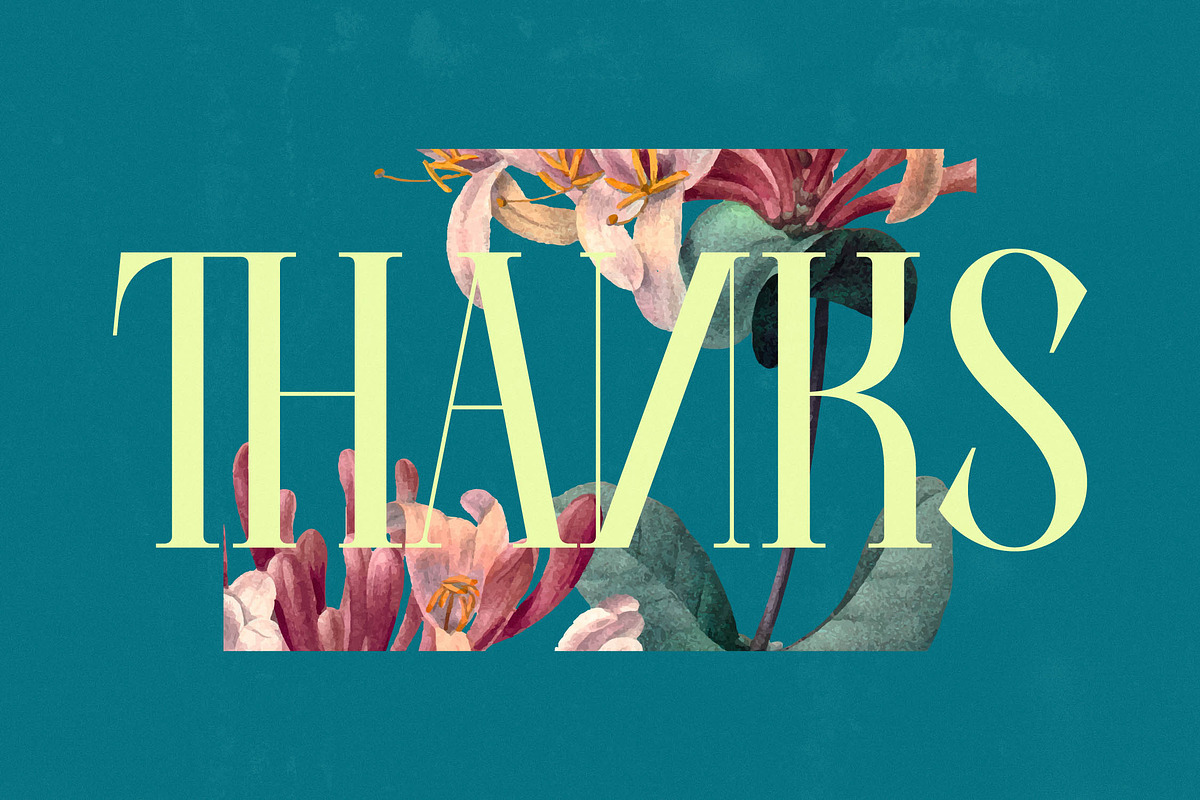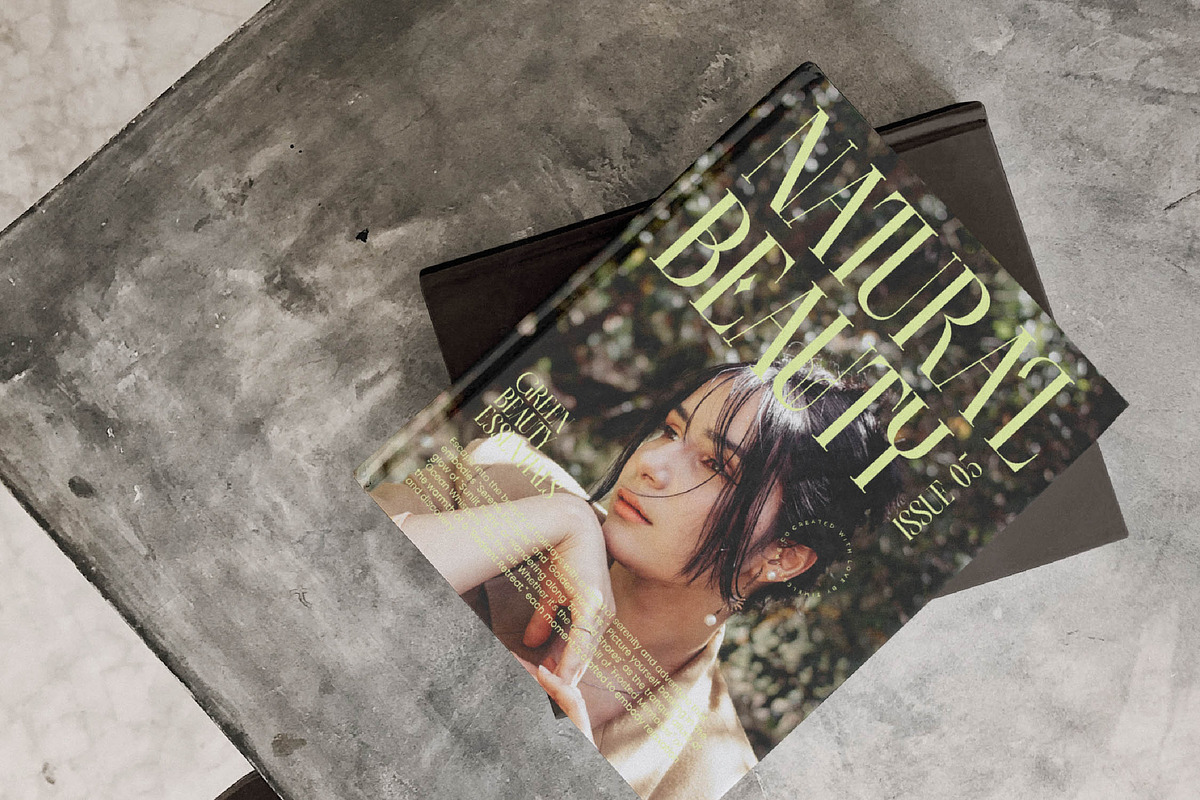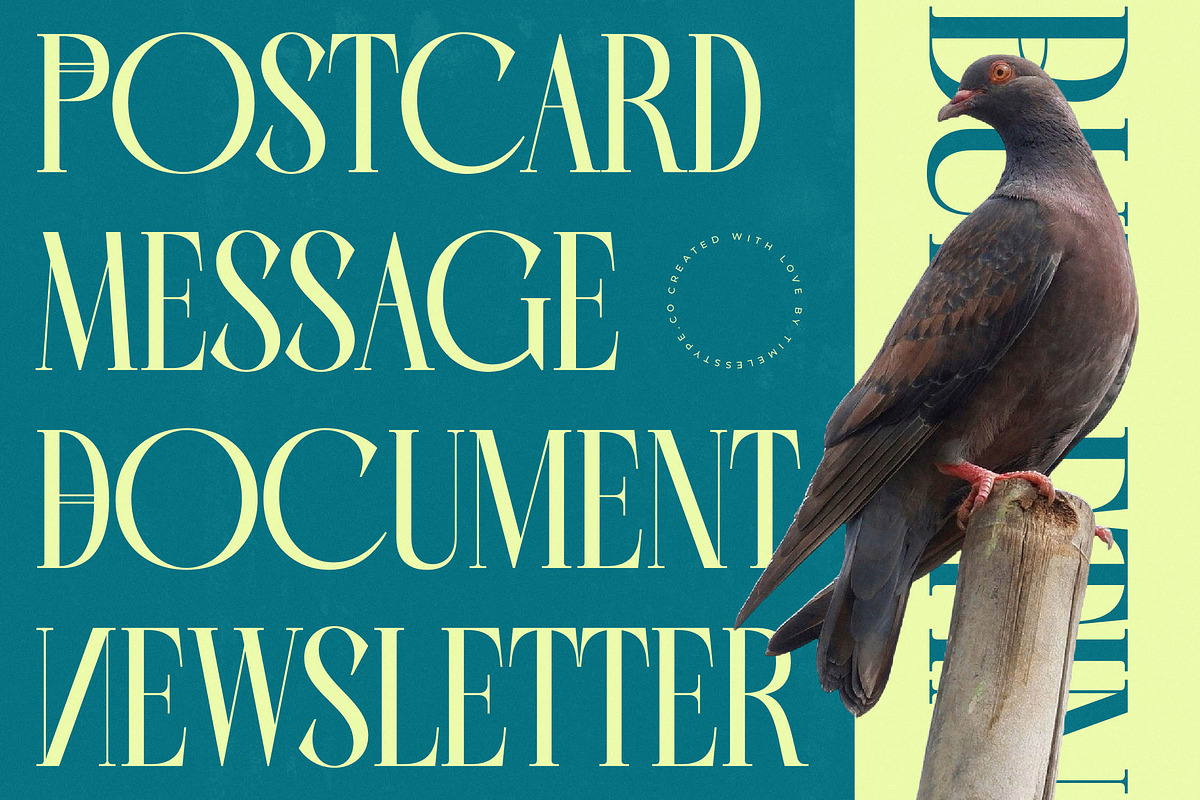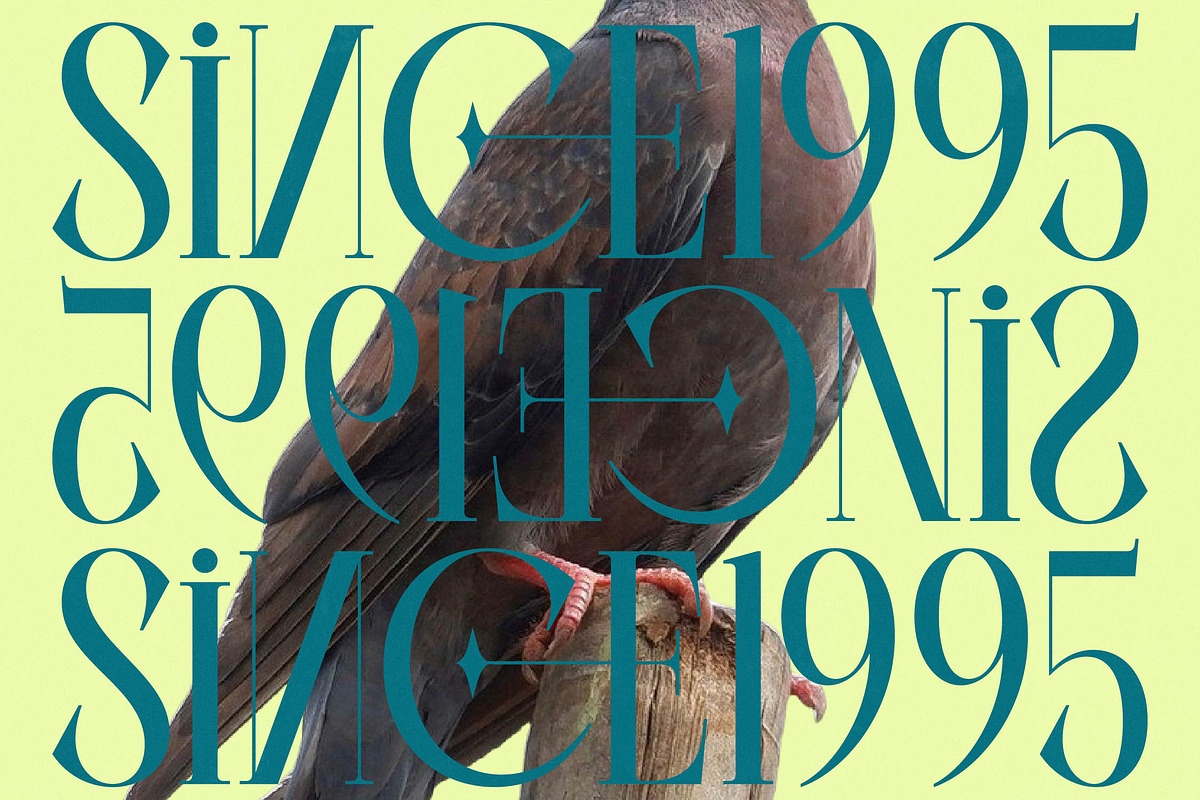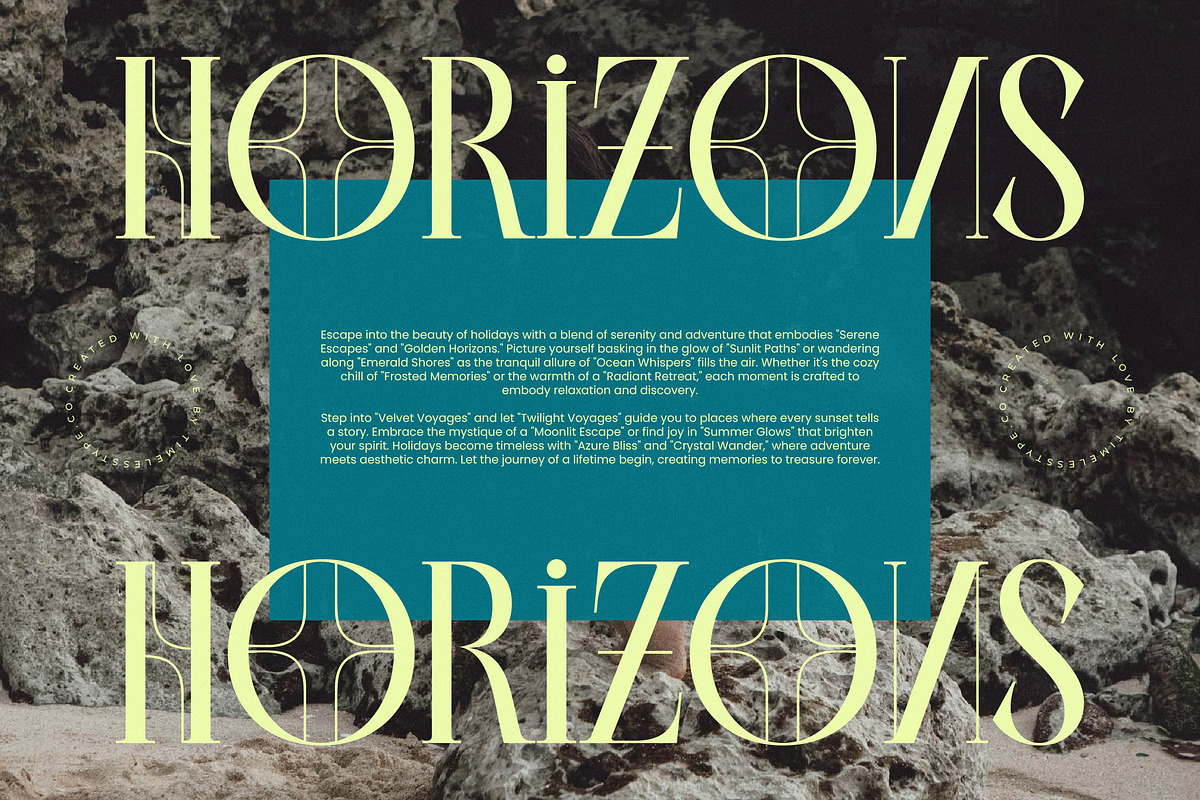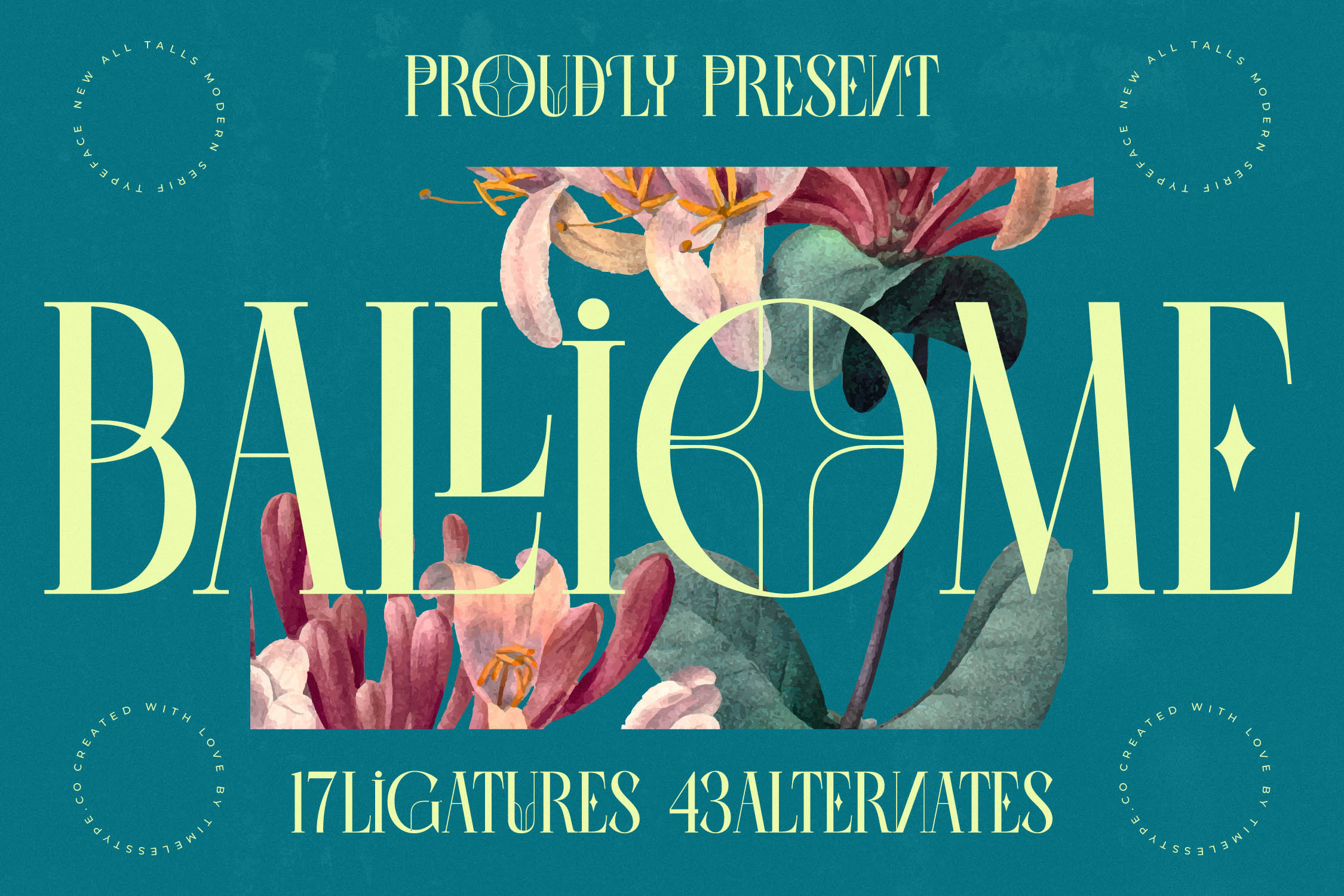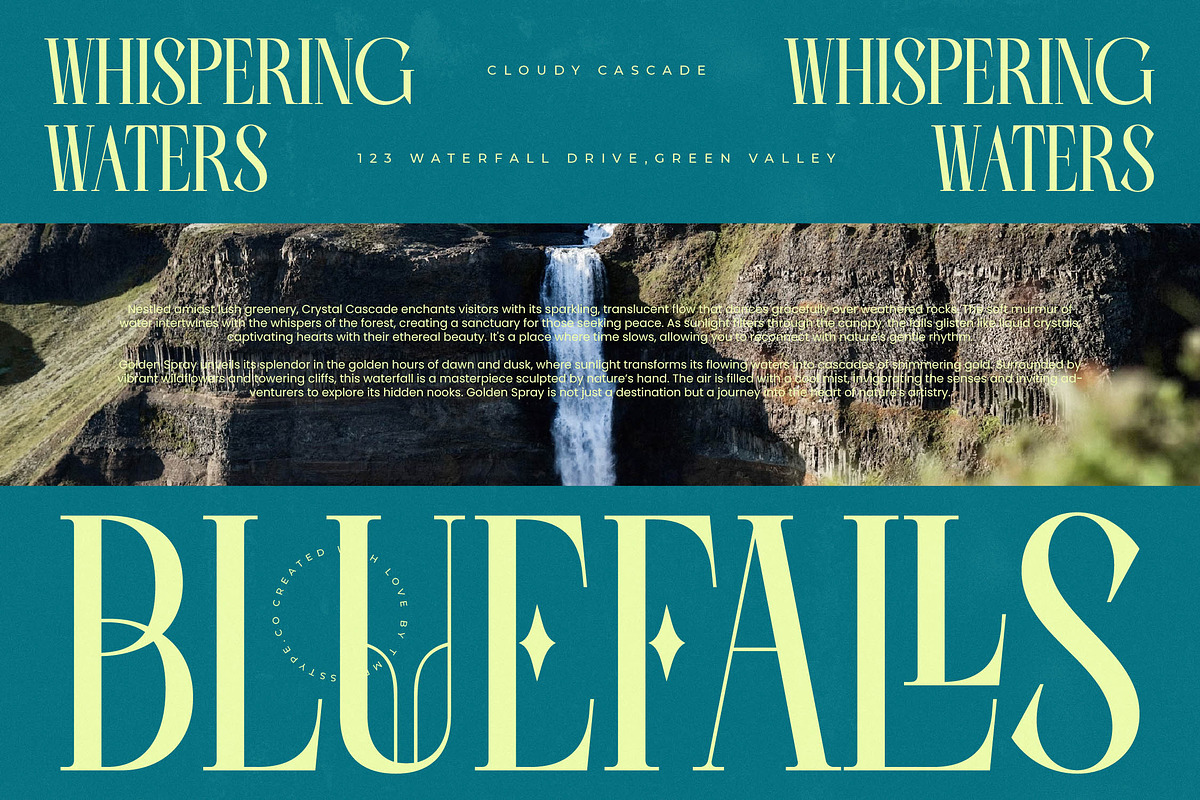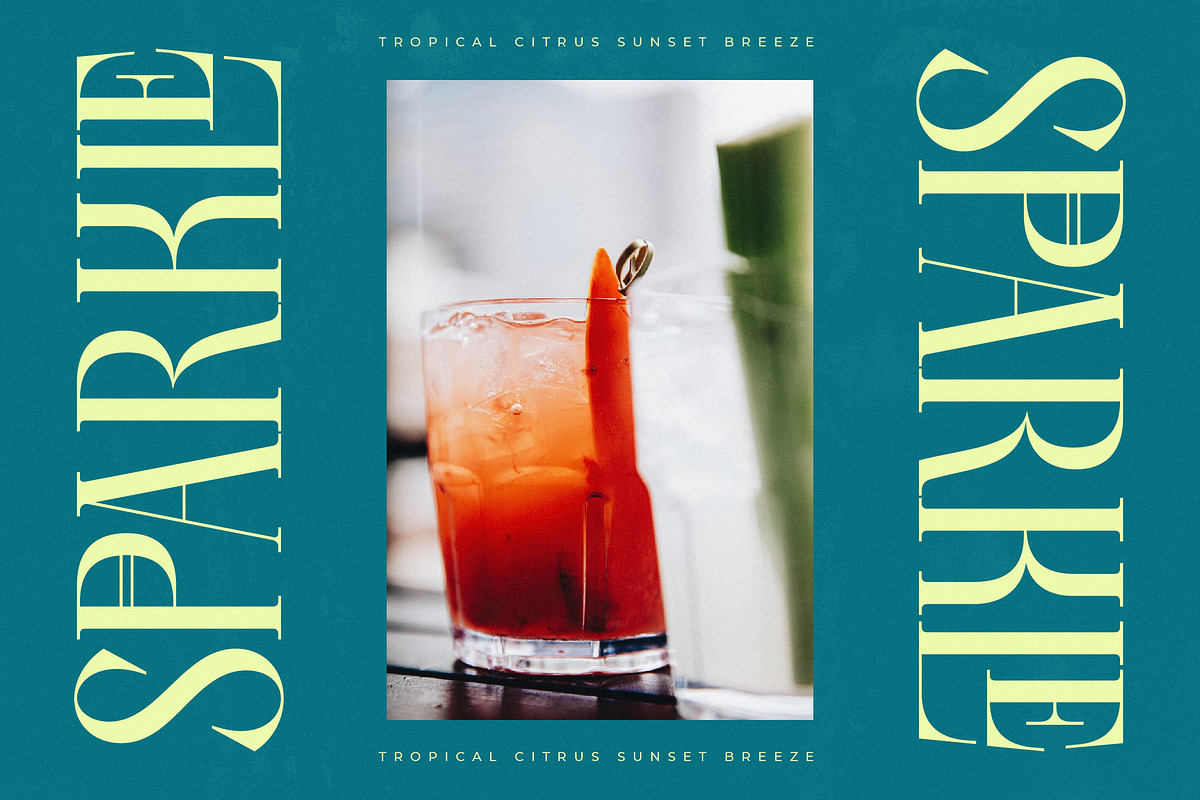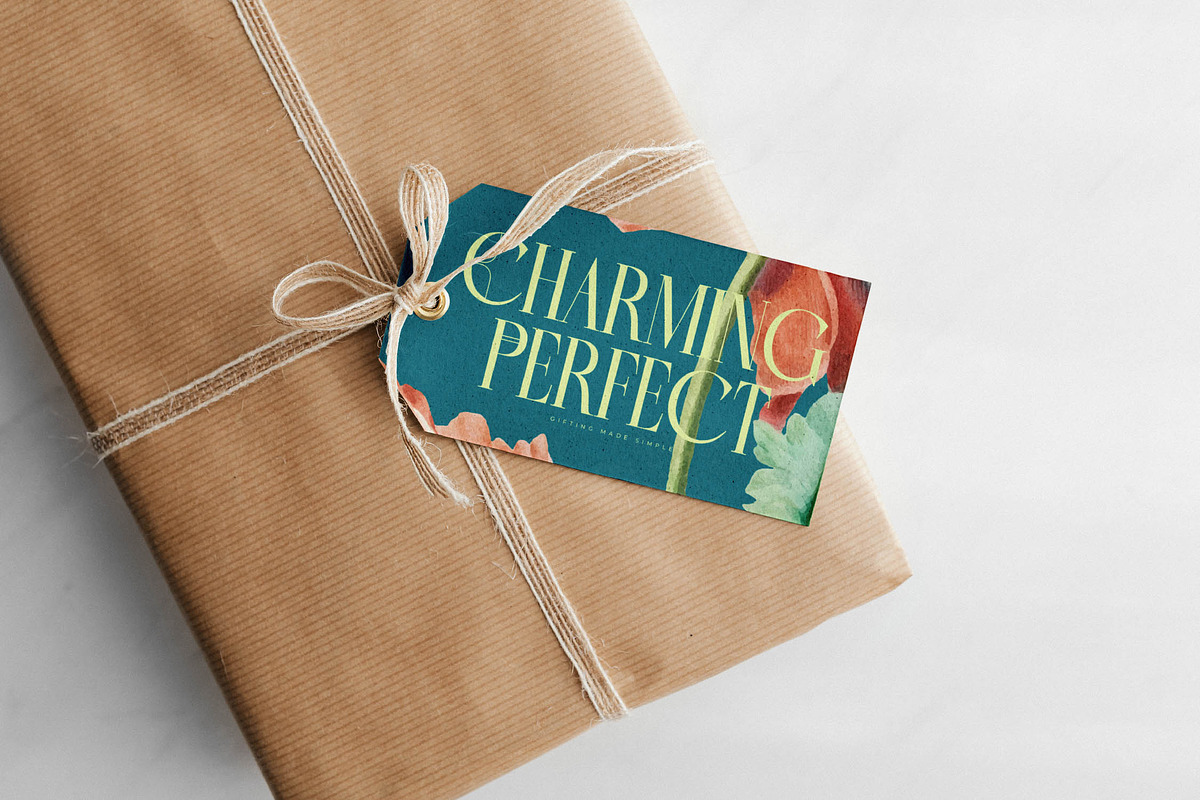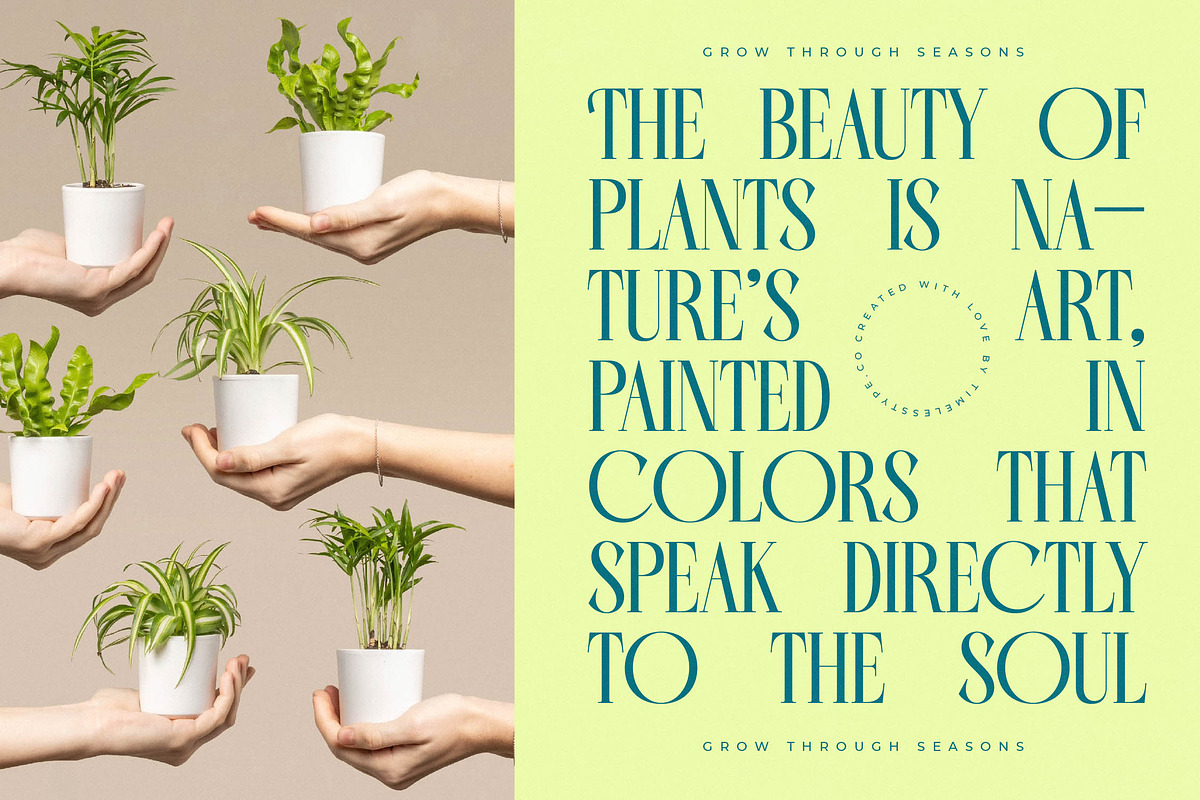
Balliome Modern Serif Typeface
Balliome - Modern Serif Typeface , from Timelesstype.Co , Suitable for any projects such as: logos, branding projects, homeware designs, product packaging, mugs, quotes, posters, shopping bags, t-shirts, book covers, name card, invitation cards, greeting cards, label, photography, watermark, special events, and all your other luxury and beautiful projects that need a Luxury Serif taste.
- Ligature 17 Alternate 43